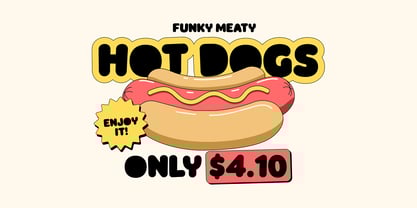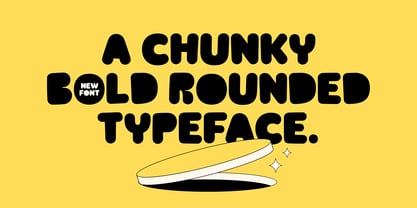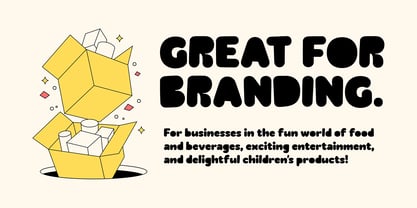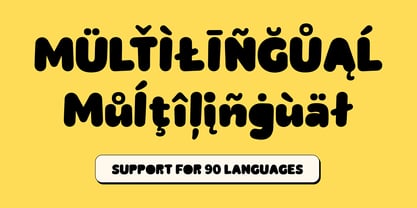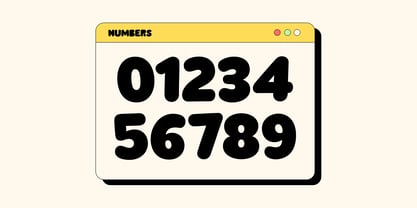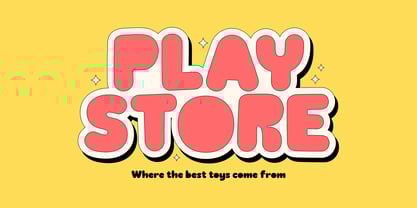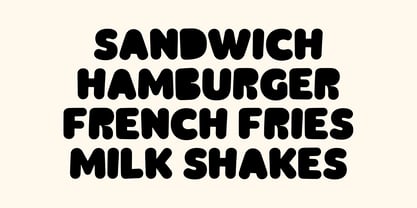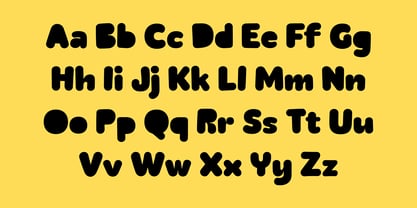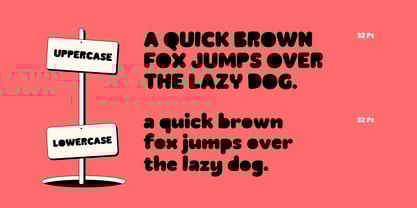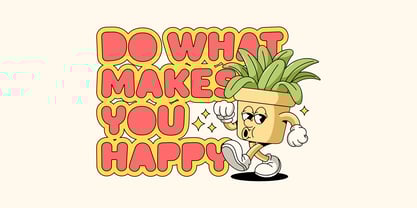
Caphole
by Graptail
The Caphole Font Family was designed by Teuku Deky Firnanda and published by Graptail. Caphole contains 1 styles. More about this family
Proudly Present Caphole - A Chunky Bold Rounded Type, created by Graptail.
Caphole is a font that perfectly encapsulates nostalgia, taking you back to a time when food was delicious and indulgent. Its delightfully curved shape makes it ideal for products with a retro feel.
Caphole infuses your packaging, labeling, and advertising with a delicious nostalgic appeal to bring the joy and pleasure of the past into the present. This font instantly evokes images of nostalgia, soda fountains, and food trucks that are instantly recognizable with rounded corners and chubby shapes.